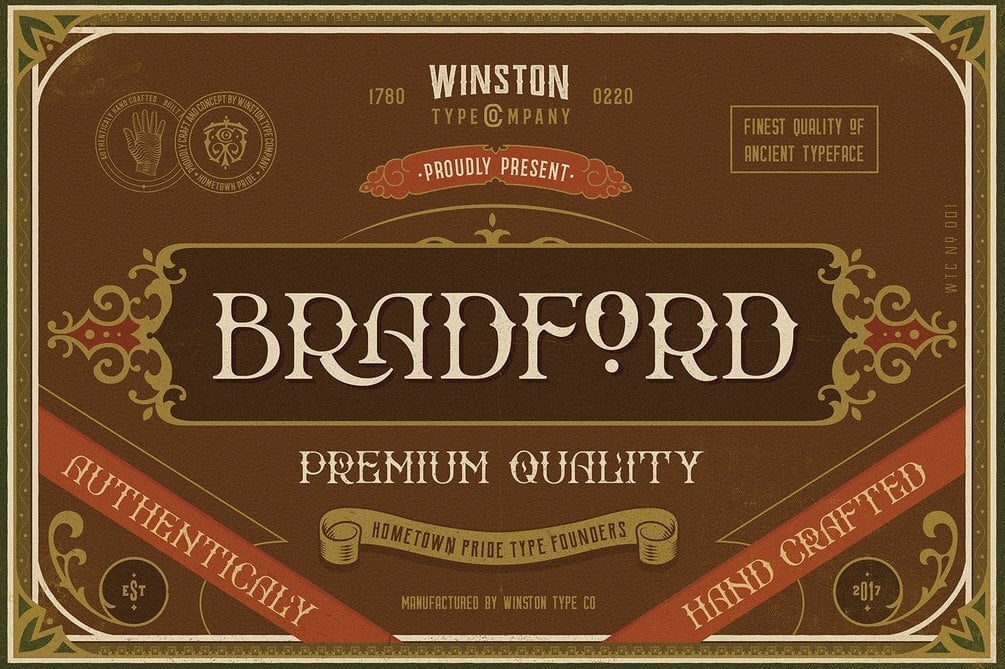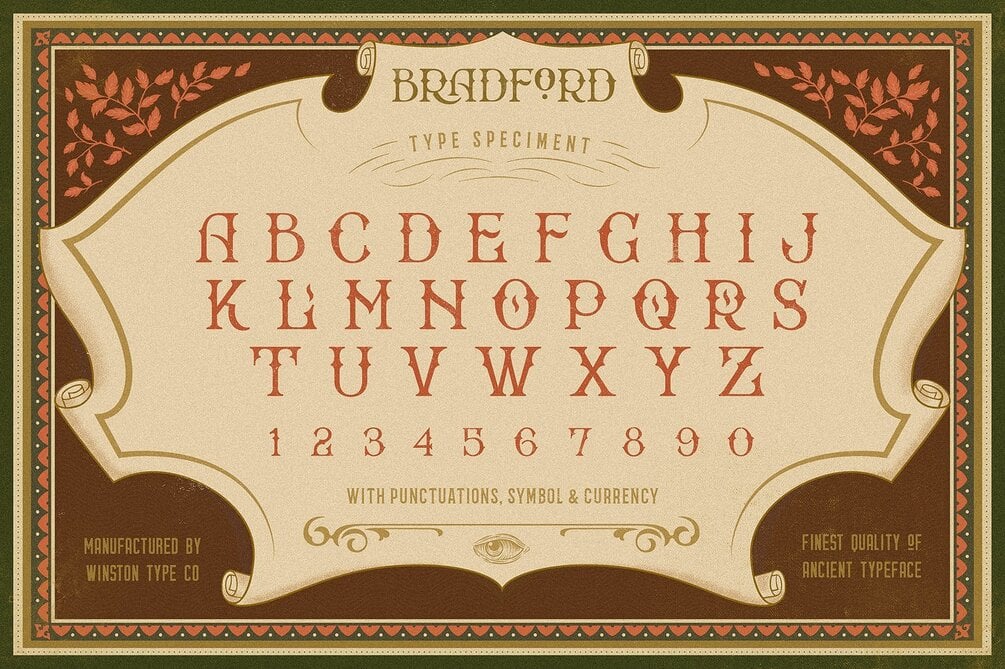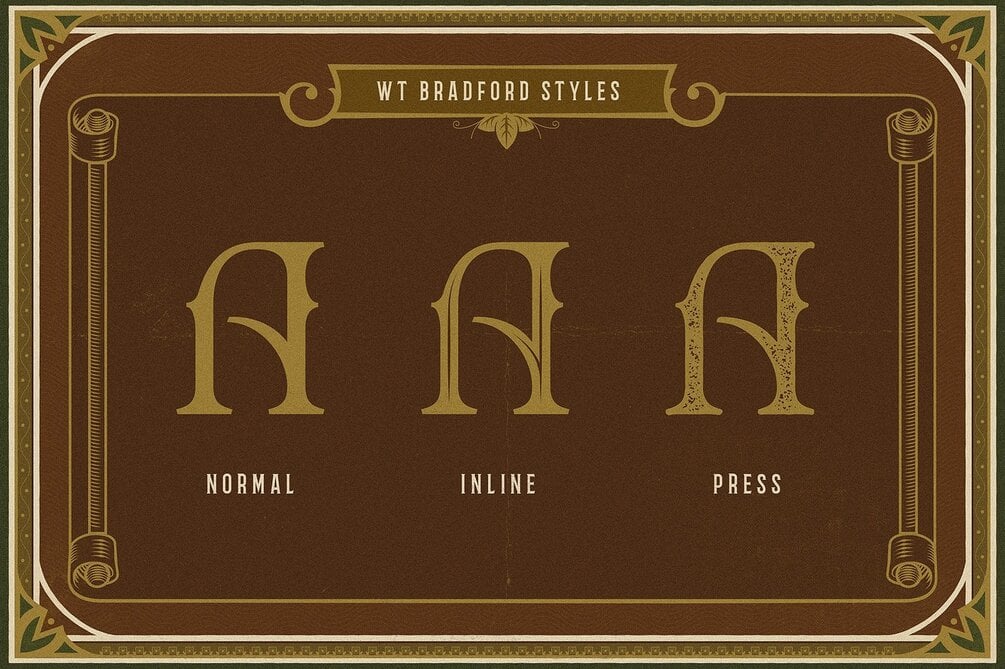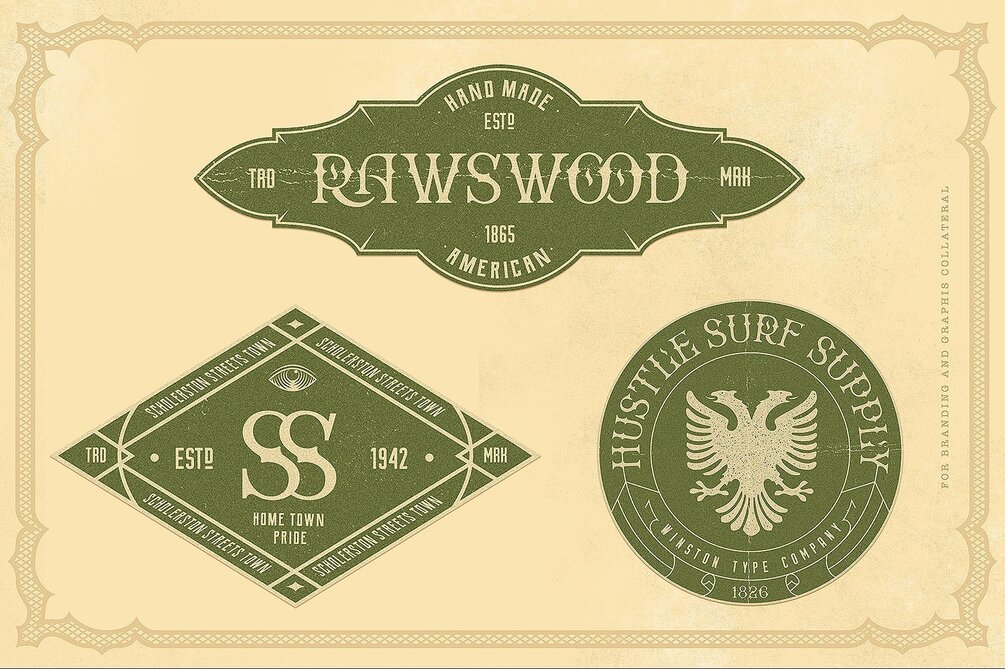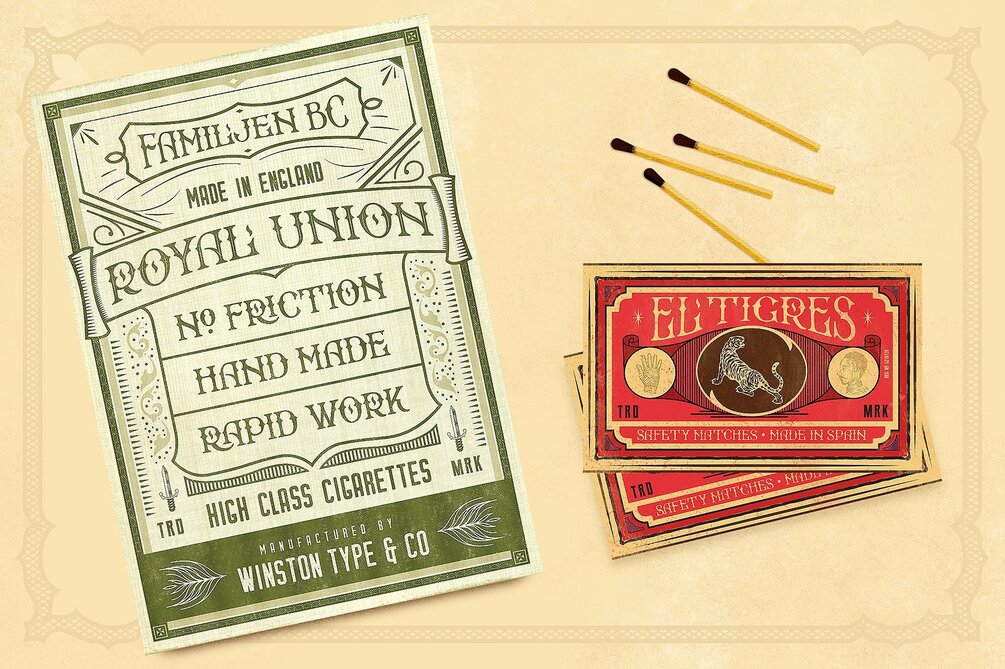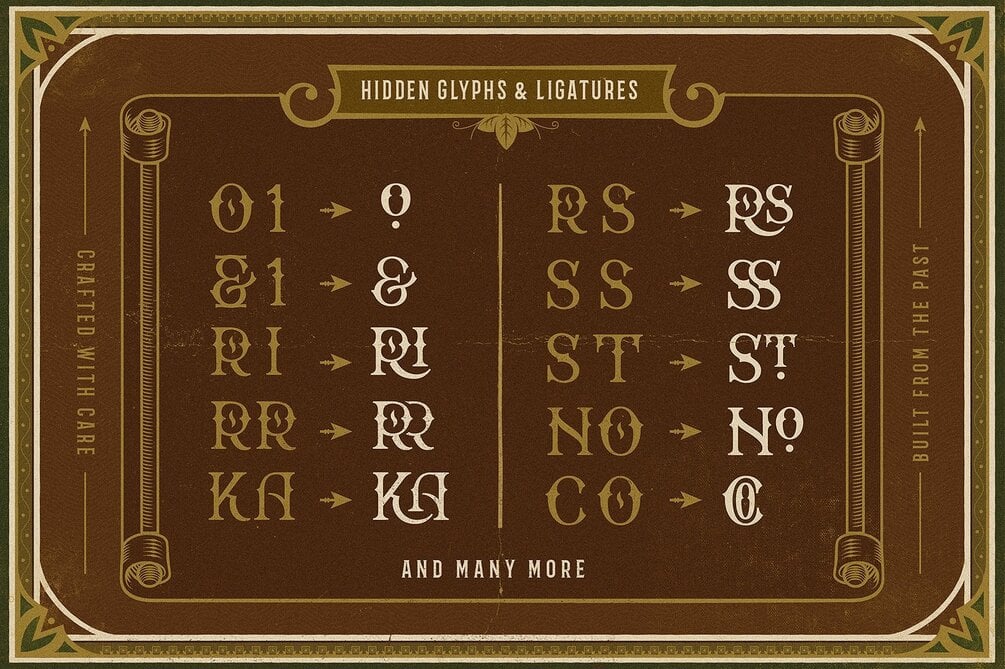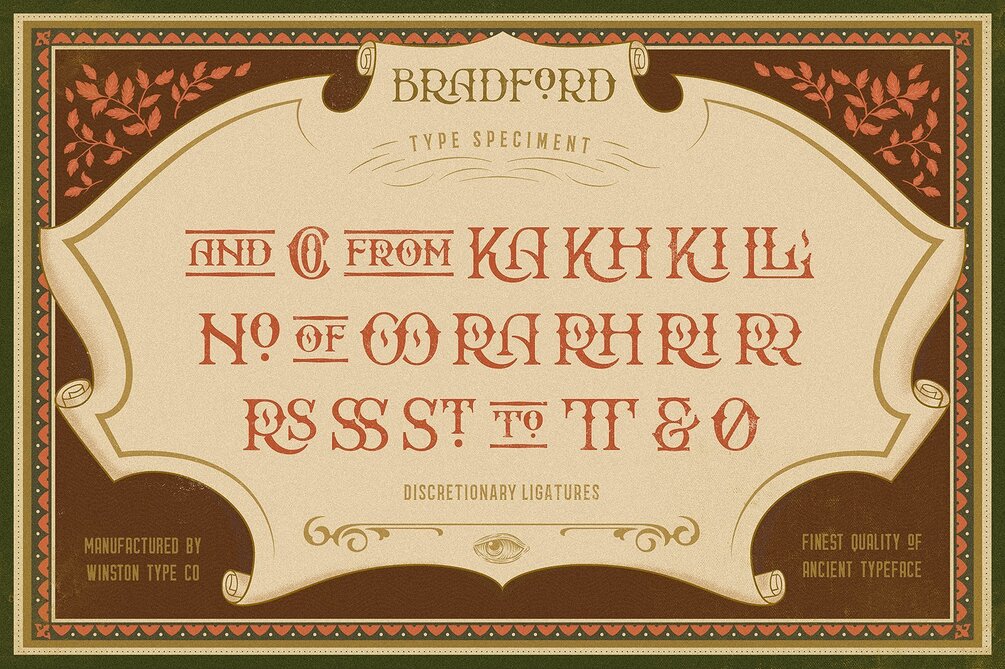
WT Bradford - Complete Set
Inspired by the old-fashioned display, traditional sign-writing and some ancient packaging in early 1900 that used primarily to create the ephemera of everyday life, the ubiquitous letter-heads, trade cards, advertising circulars and bills that serve an immediate purpose.
WT Bradford consists of capitals alphabets with glyph alternates in some letters. There is also unique ligatures that you can play & match with any words or sentence that fit with your design project. You may also want to access some catchwords like “to” and “and” located in the discretionary ligature slots. You could easily access it just in seconds, the instruction is included in the download pack. Set includes in 3 styles: Regular, Press (distressed) and inline.
This typeface is created for today creatives, it’s perfectly used for displays, signs, label designs, badges, logo, prints, apparels, and much more. Great for constructing provocative headlines and titles.
Carefully crafted by hands, manually and digital.
Features :
• Character set A-Z in capital letters
• Special Ligatures
• Catchwords
• Numerals & Punctuation
• 3 font styles : Regular, Press (distressed) and inline.